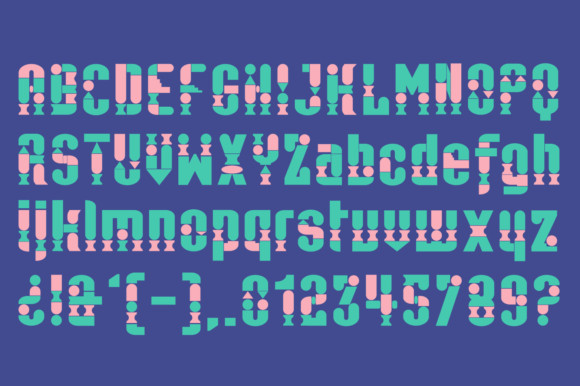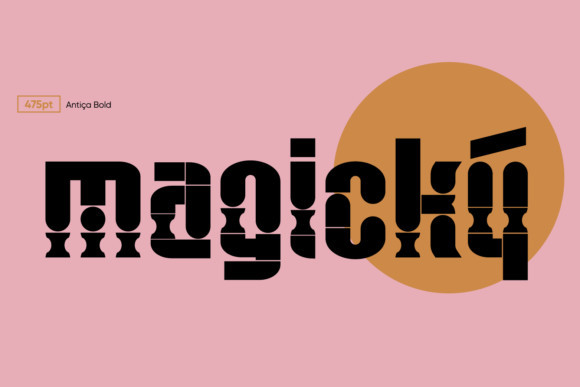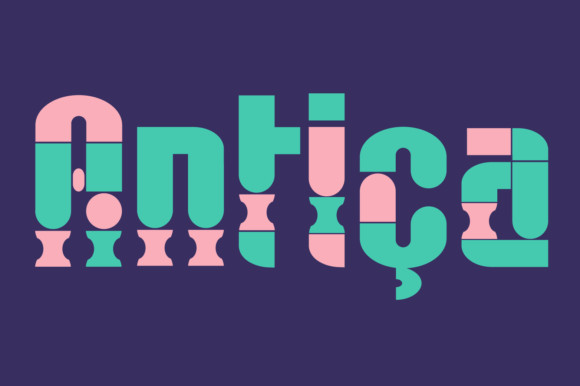
Antica Font
Antica is made from geometric forms and includes 3 variables: Regular – Alternative – Bold. Get inspired by this playful, colorful and fun font!